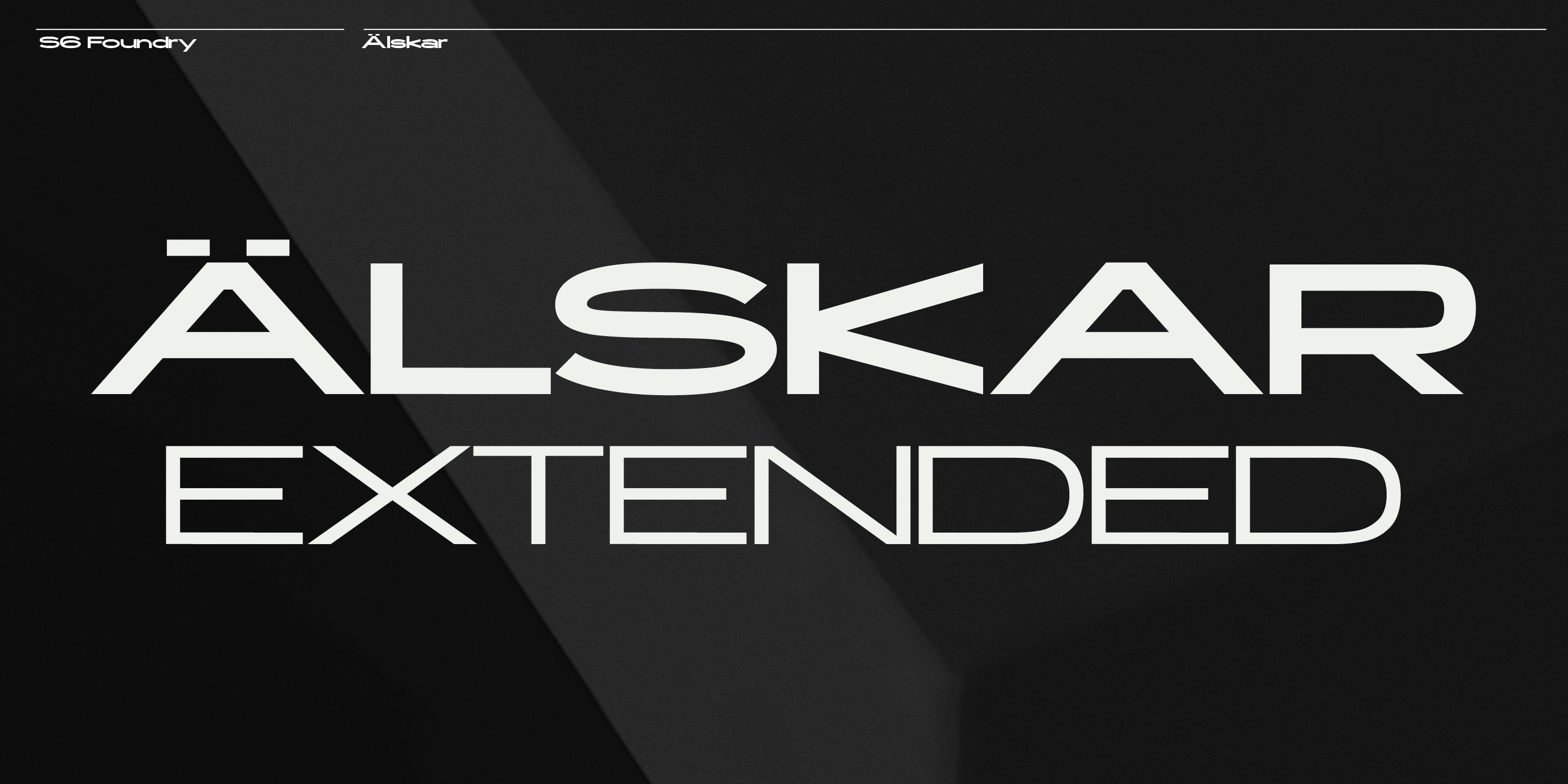
Alskar Extended Font excels in Scandinavian lifestyle branding, Nordic design studios, modern furniture showrooms, minimalist architecture firms, Swedish-inspired restaurant menus, contemporary home decor packaging, hygge lifestyle publications, and Nordic wellness retreat materials. This elegant extended typeface brings Scandinavian sophistication and Nordic design philosophy to any project requiring clean, spacious typography with authentic Nordic charm and modern European elegance.
What makes Alskar Extended Font exciting is its perfect embodiment of Scandinavian design principles and Nordic aesthetic philosophy that captures the harmonious balance of functionality and beauty found in Swedish and Danish design traditions. The font features extended letterforms with generous spacing and clean proportions that mirror the spacious, light-filled environments of Nordic homes and the thoughtful simplicity of Scandinavian lifestyle choices while maintaining exceptional readability for contemporary branding applications. Its Nordic character and design sophistication make it ideal for brands celebrating minimalism, functionality, and the peaceful elegance of Scandinavian living. The typeface's Nordic appeal ensures instant recognition of Scandinavian quality and design authenticity.
The Alskar Extended Font family includes Light, Regular, Medium, Bold, and Black weights, each maintaining the signature Scandinavian elegance while offering different expressions of Nordic sophistication and modern European design. The family features Nordic symbols, Scandinavian characters, and design elements that enhance its versatility for European branding and Nordic lifestyle projects. These variants provide comprehensive tools for creating authentic Scandinavian typography with genuine Nordic character and design philosophy.
Whether you're designing for Nordic brands, Scandinavian lifestyle companies, or modern European businesses, Alskar Extended Font Free Download delivers the Scandinavian sophistication that defines authentic Nordic typography. Its combination of design elegance and Nordic functionality makes it perfect for communicating Scandinavian values, modern European style, and Nordic excellence with genuine Alskar Extended Font Free Download character and timeless Scandinavian sophistication.